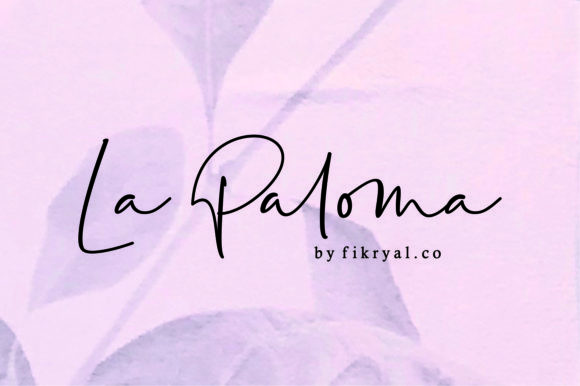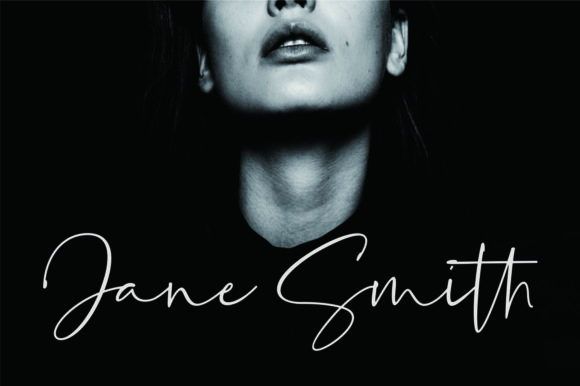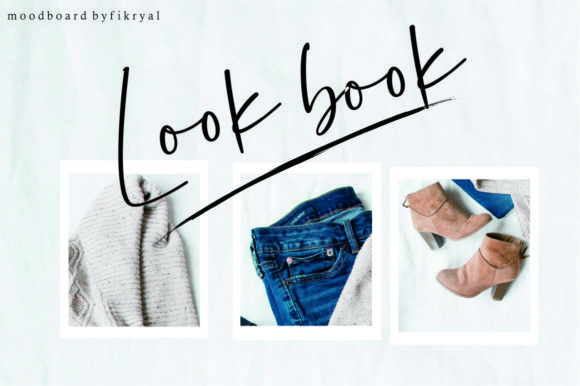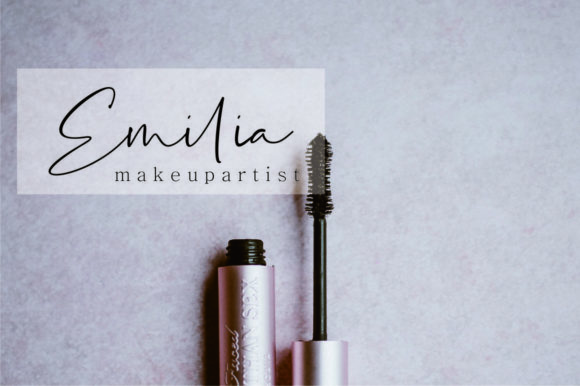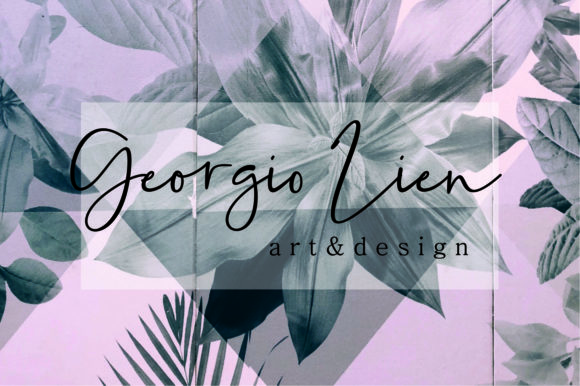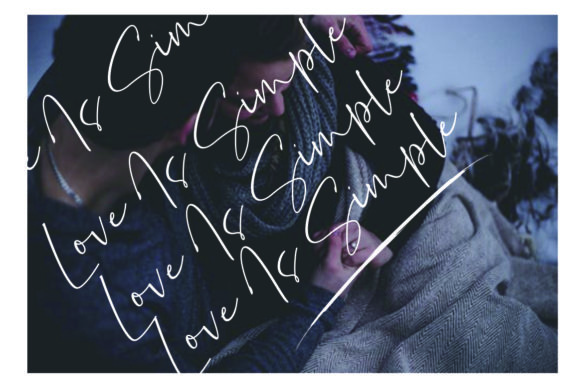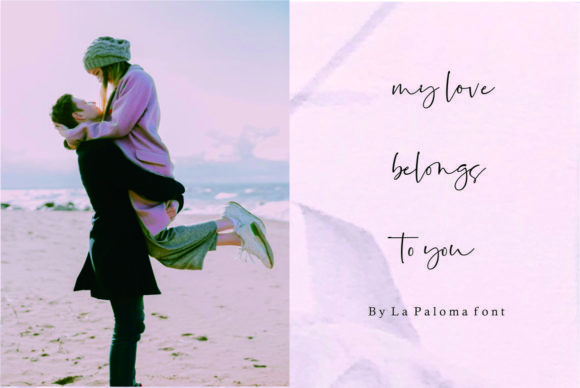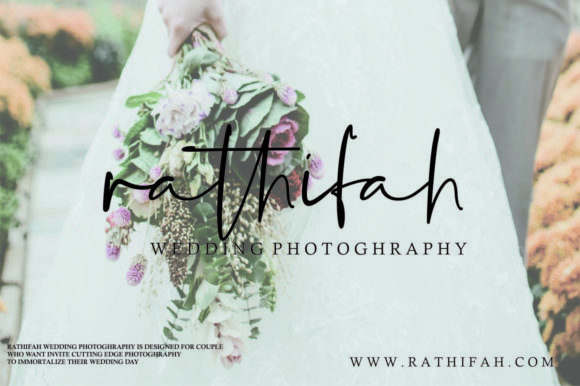
La Paloma Font
The La Paloma is an amazing handwritten font. It’s perfect for logos, posters, handwriting, mock-ups, magazines, business cards and much more!